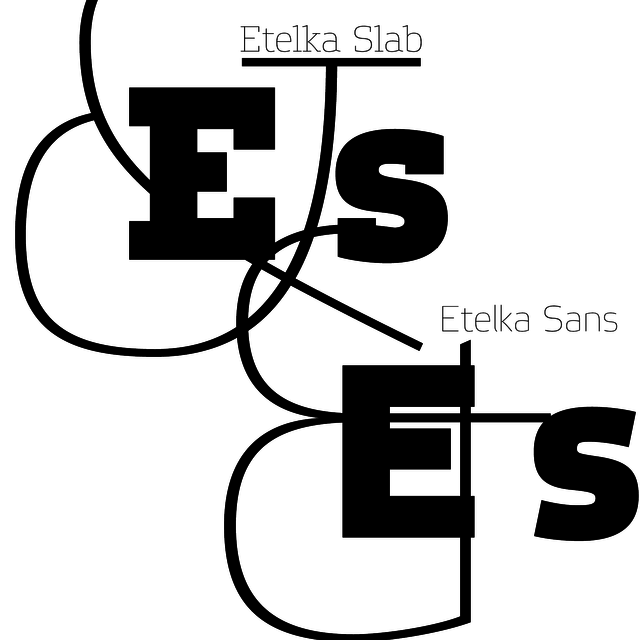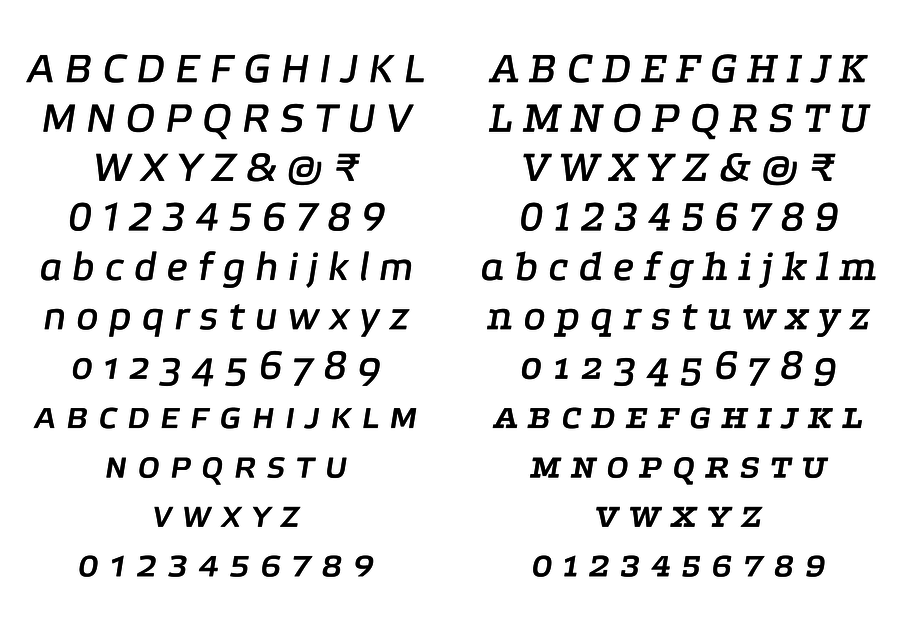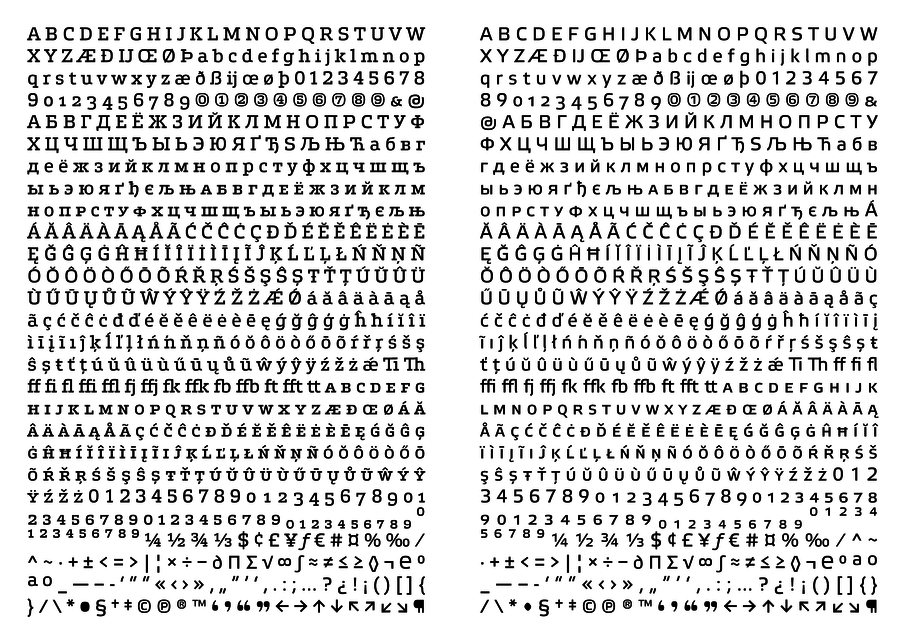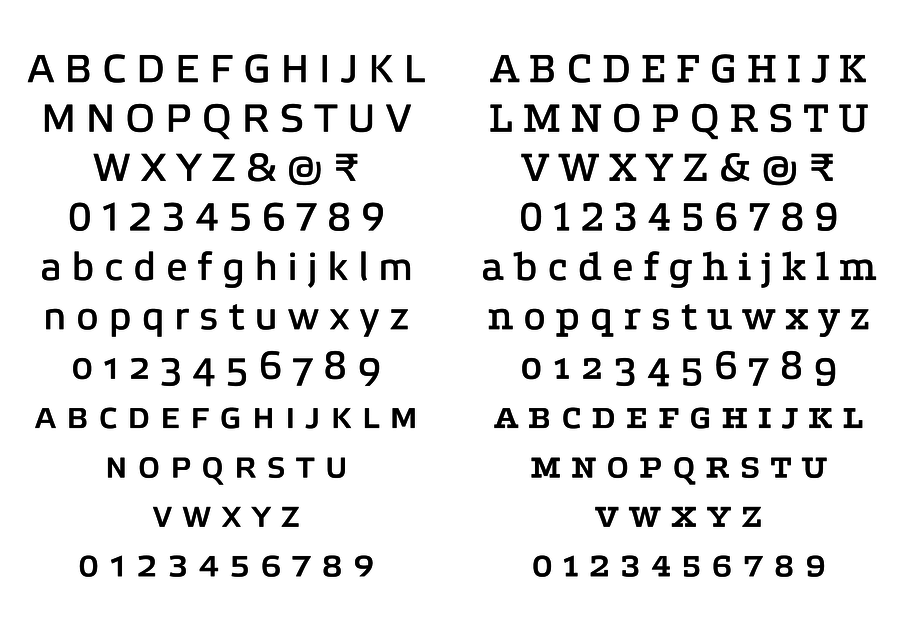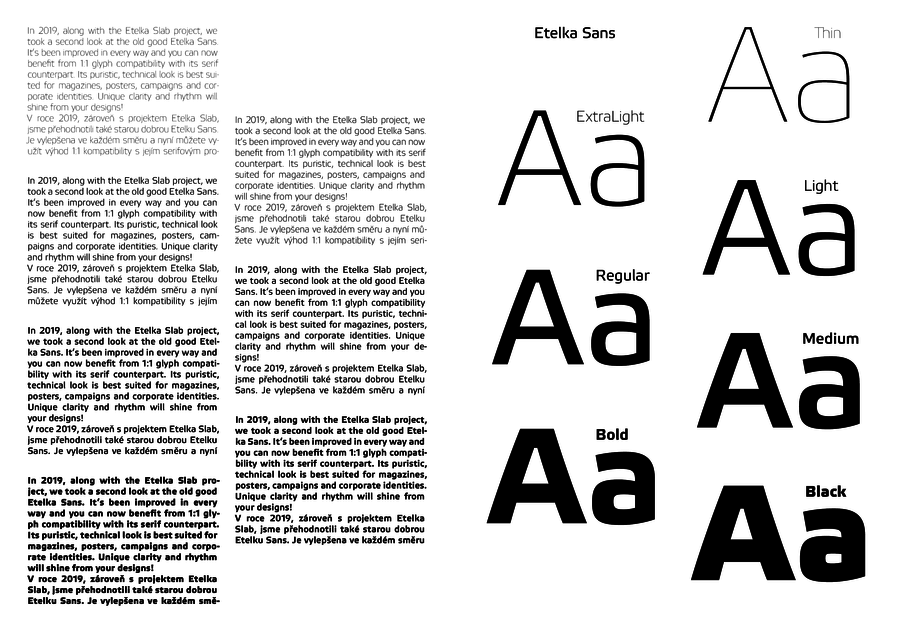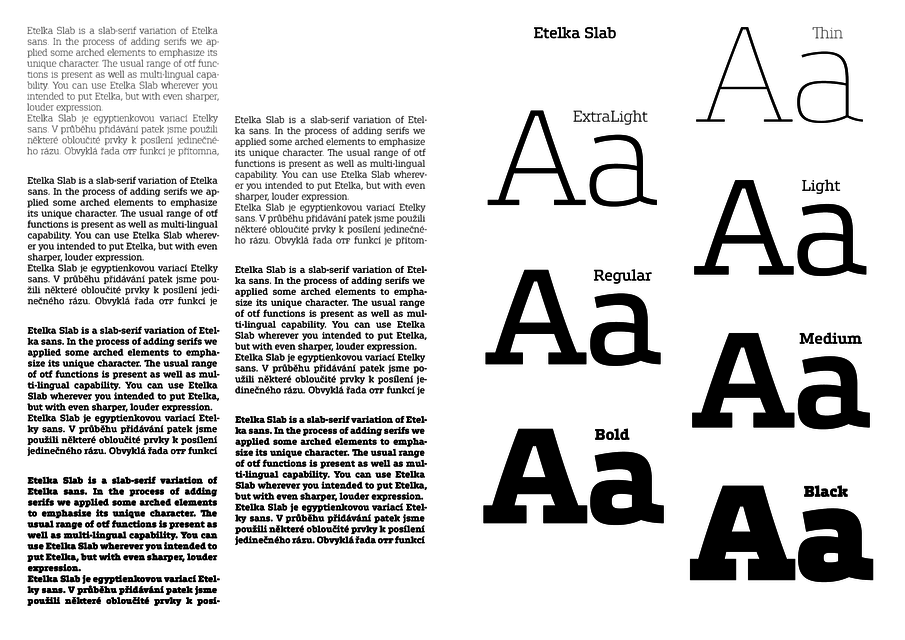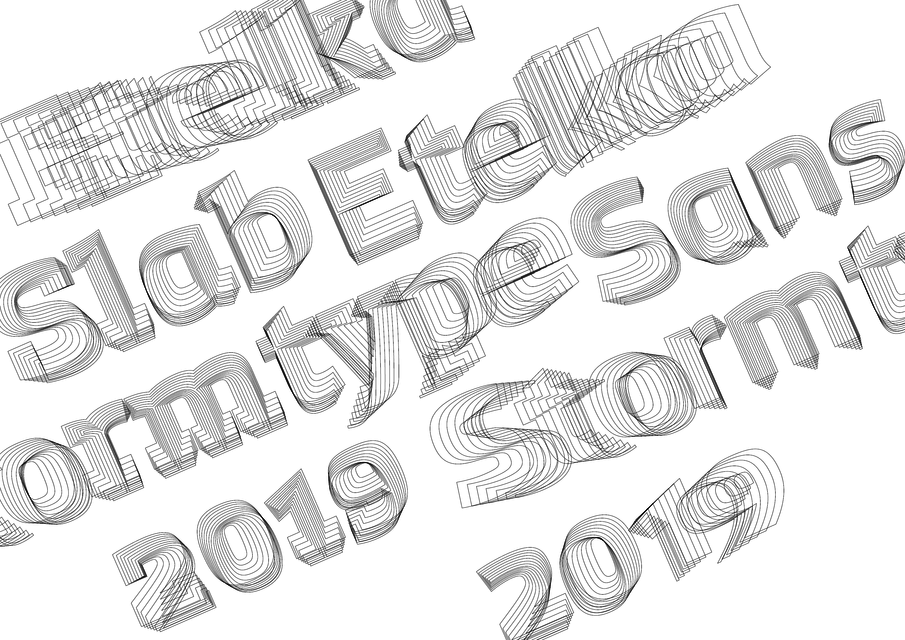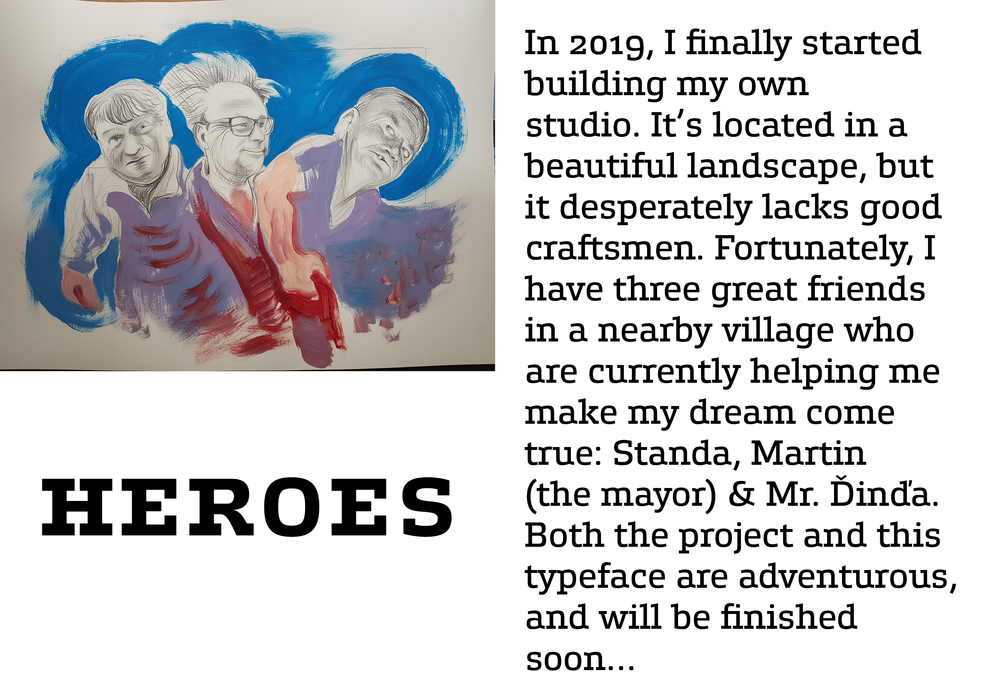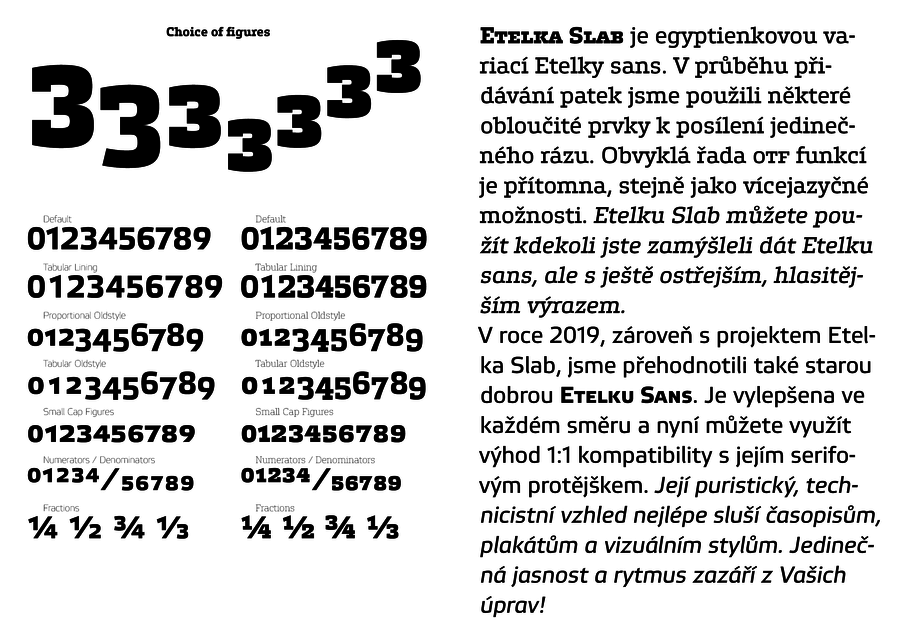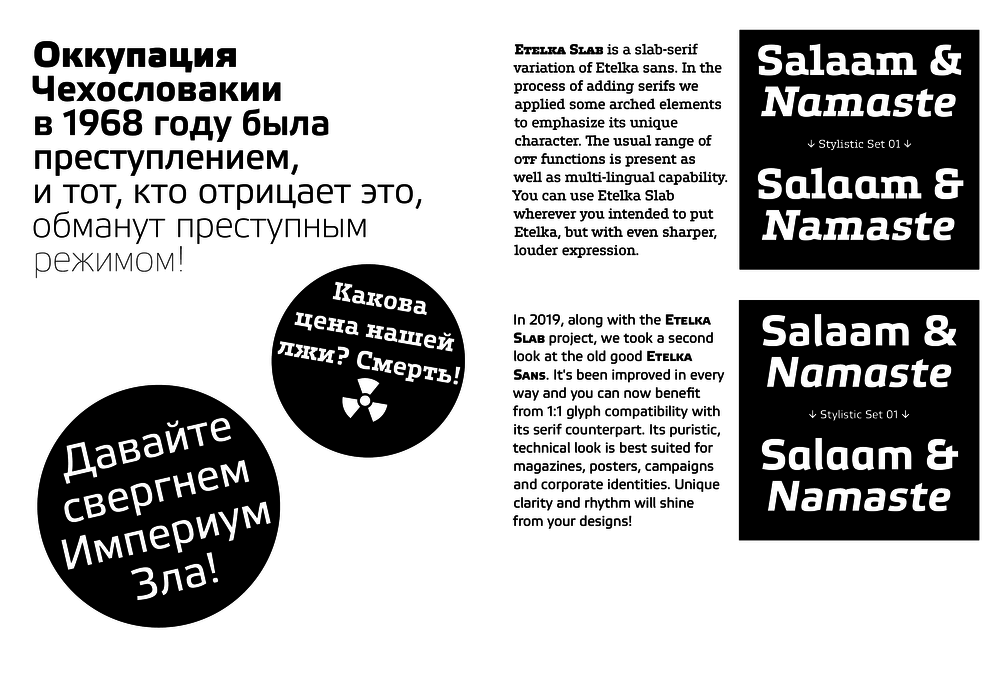
Etelka Slab is a slab-serif variation of Etelka sans. In the process of adding serifs we applied some arched elements to emphasize its unique character. The usual range of otf functions is present as well as multi-lingual capability. You can use Etelka Slab wherever you intended to put Etelka, but with even sharper, louder expression.
In 2019, along with the Etelka Slab project, we took a second look at the old good Etelka Sans. It's been improved in every way and you can now benefit from 1:1 glyph compatibility with its serif counterpart. Its puristic, technical look is best suited for magazines, posters, campaigns and corporate identities. Unique clarity and rhythm will shine from your designs!